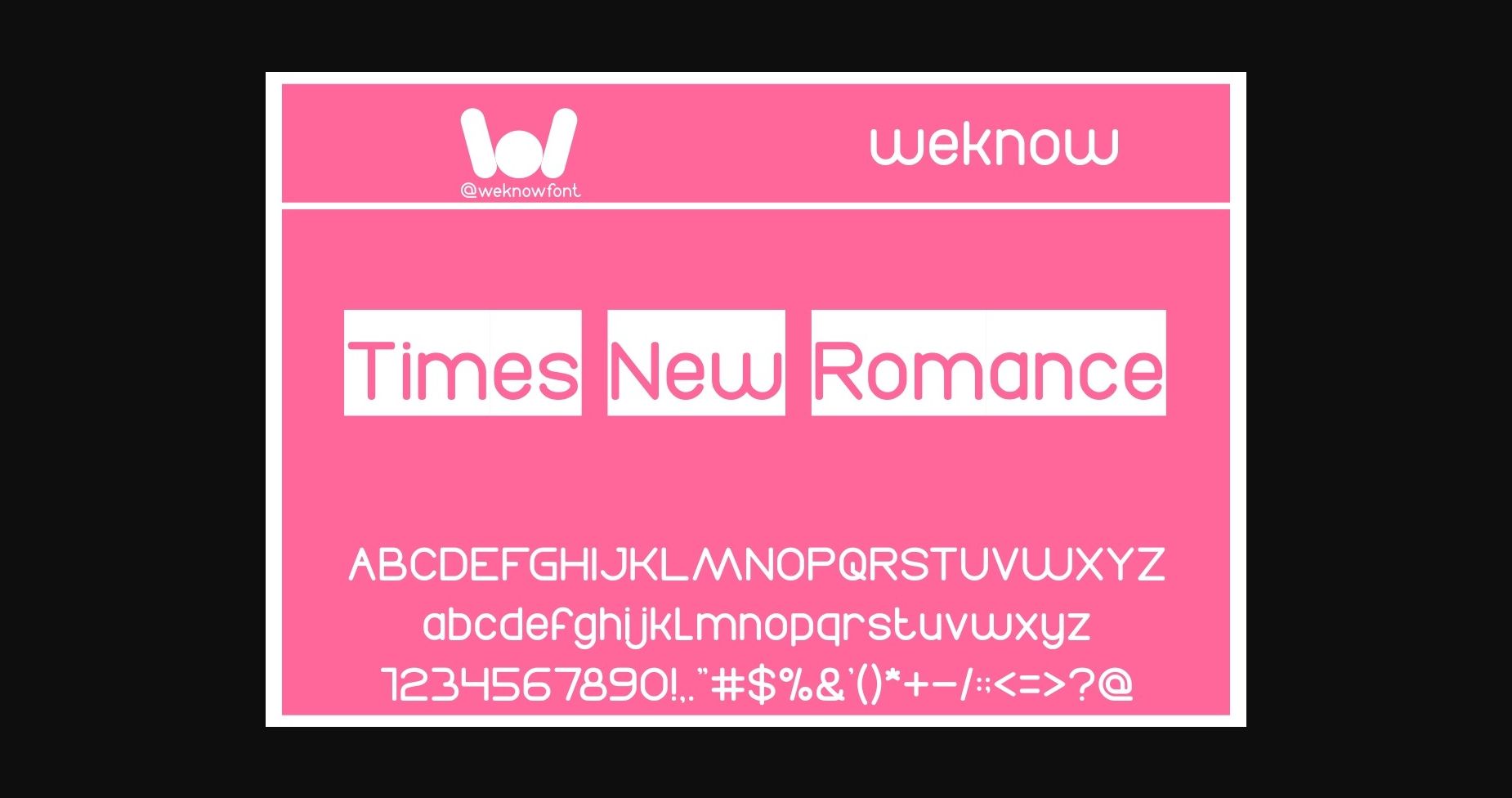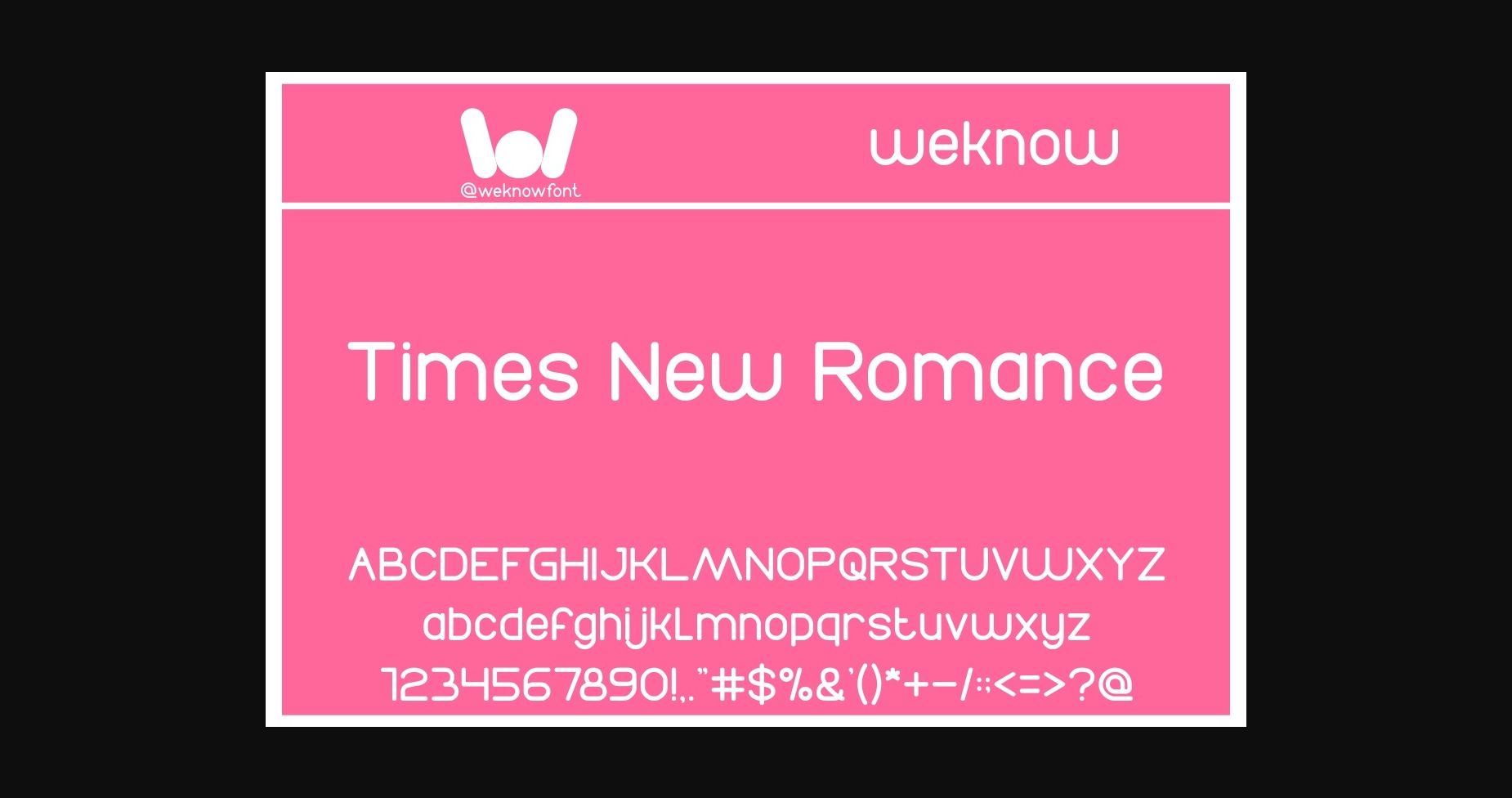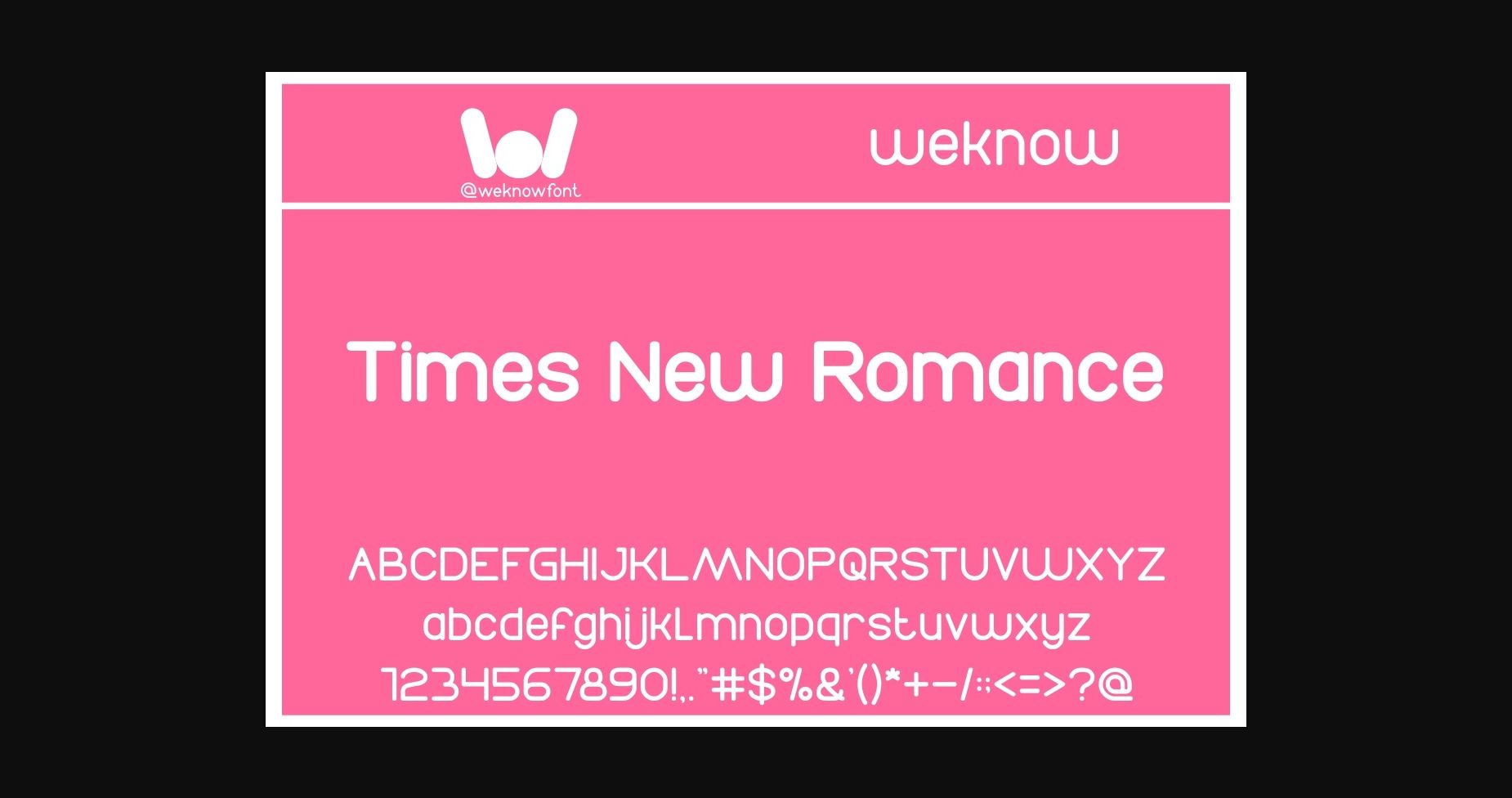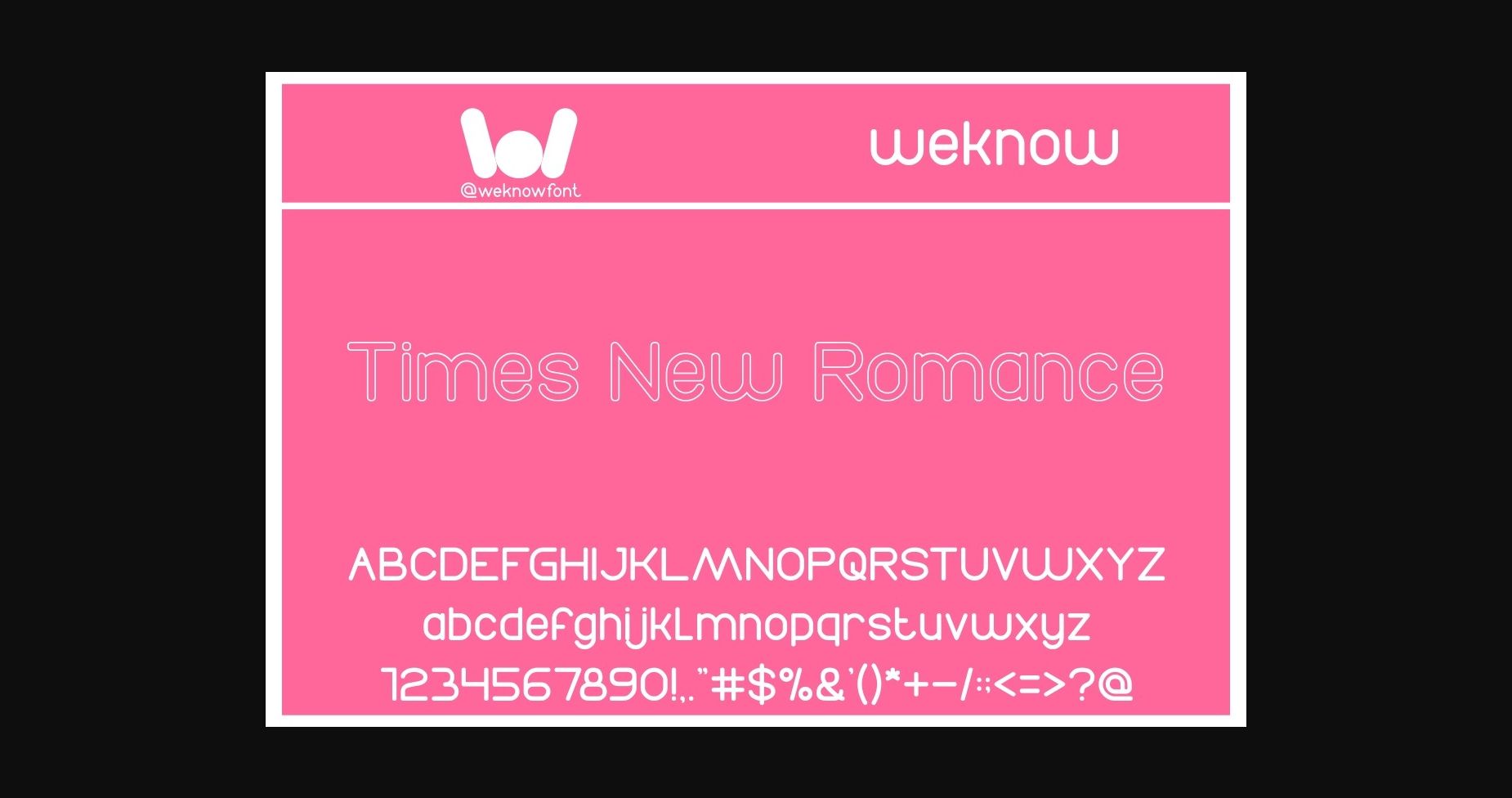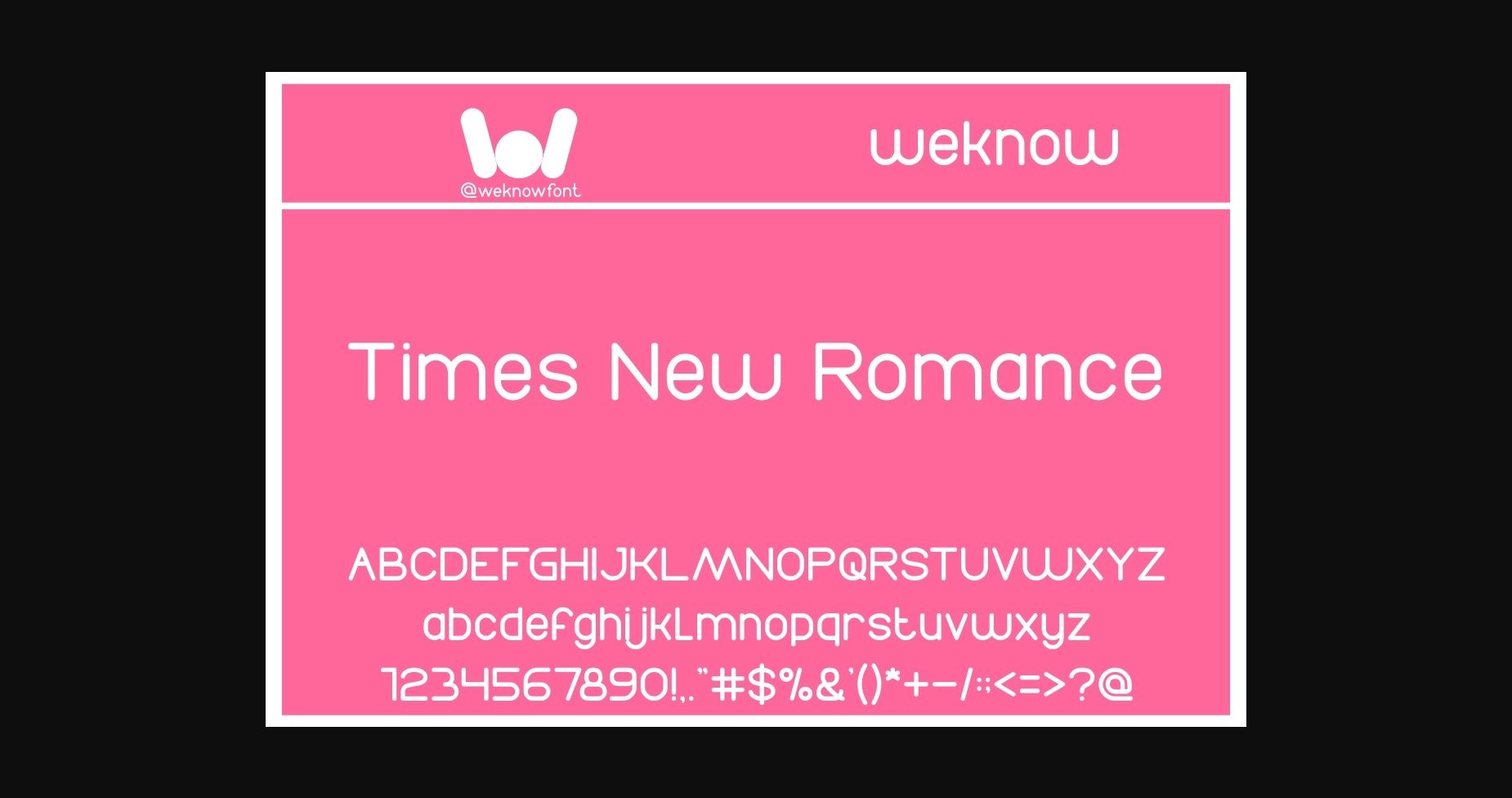
HomeSans Serif FontsTimes New Romance Font Sans Serif Fonts Times New Romance Font FacebookXPinterestWhatsApp 1 of 7 ... Times New Romance Font Poster 2... Times New Romance Font Poster 3... Times New Romance Font Poster 4... Times New Romance Font Poster 5... Times New Romance Font Poster 6... Times New Romance Font Poster 7... About Times New Romance Font Times New Romance is an elegant and modern sans serif font. This minimalist and clean vibe can easily apply to your favorite designs such as book covers, magazines, social media posts, invitations, and so much more! DOWNLOAD NOW People also explored Daddy Smile Font Magenta Font Patternline Dingbat Font Briefcase Font Gesttrak Font Nostalgic Font Farm Sungoal Font Rosianne Font Tabula Font 627 0 TagsTimes New Romance Font Previous articleLetter Tracer FontNext articleAvata Font LEAVE A REPLY Cancel reply Comment: Please enter your comment! Name:* Please enter your name here Email:* You have entered an incorrect email address! Please enter your email address here Website: Save my name, email, and website in this browser for the next time I comment. Personal Use Free Open Heart Personal Use Free Read more about this font Stereofidelic Personal Use Free Read more about this font The Shocker Personal Use Free Read more about this font Mike Ferrari 16017 Personal Use Free Read more about this font BLOG Free Fonts Risk: Why Free Fonts Can Be Dangerous for Designers Free Fonts Risk: Why Free Fonts Can Be Dangerous for Designers Using free fonts is a common practice in web and graphic design. However, the... The 10 Best Handwriting Fonts to Add Personality to Your Designs Best Fonts for YouTube Videos: Make Your Thumbnails Stand Out Where to Buy American Fonts Online in 2024